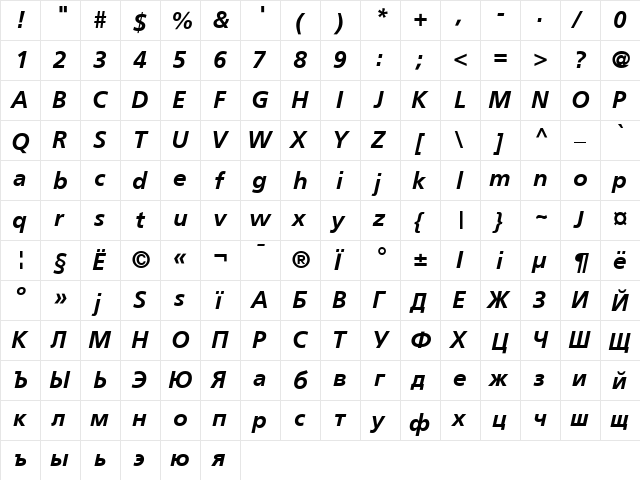
AG Foreigner Light-Bold Italic Bold
Design Context for AG Foreigner Light-Bold Italic Typeface
AG Foreigner Light-Bold Italic is a composed and adaptable typeface that performs quietly and consistently across a wide range of design contexts. The slanted form adds forward momentum and visual energy. The heavy weight commands attention and anchors typographic hierarchies.
Pro Tip: Use AG Foreigner Light-Bold Italic for emphasis, pull quotes, and subheadings where its slanted energy can add rhythm to the layout.